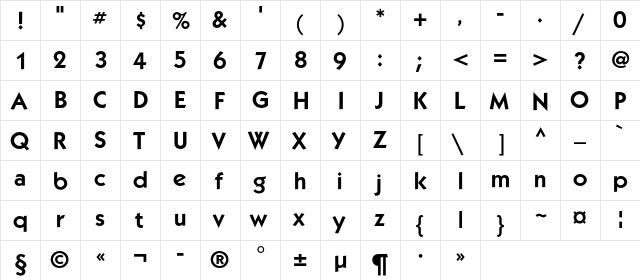
KabelC Book Bold
Design Context for KabelC Book Typeface
KabelC Book is a composed and adaptable typeface that performs quietly and consistently across a wide range of design contexts. Its bold stroke weight gives it real presence on the page.